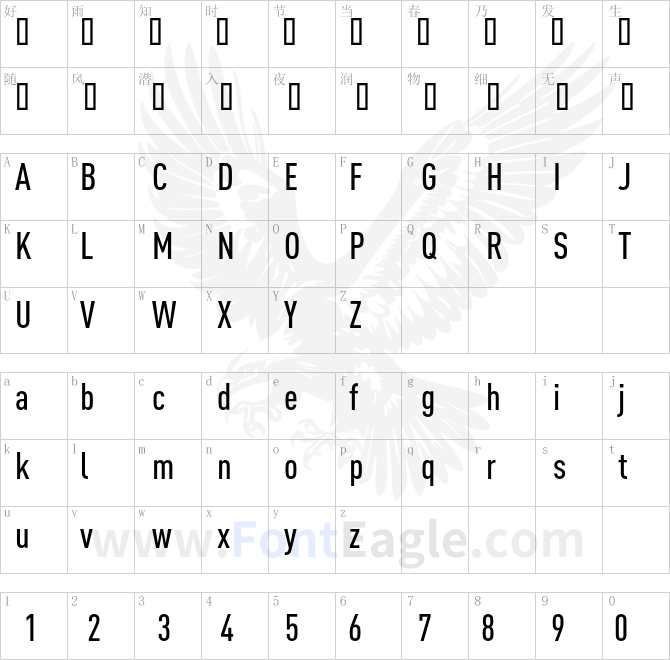
- Font name:DINOT-CondMedium
- Font Subfamily ID:Albert-Jan Pool: DINOT-CondMedium: 2005
- Font Full Name:DINOT-CondMedium
- Font Version:Version 7.504; 2005
- Postscript:DINOT-CondMedium
- Font Copyright:2005 Albert-Jan Pool published by FSI FontShop International GmbH